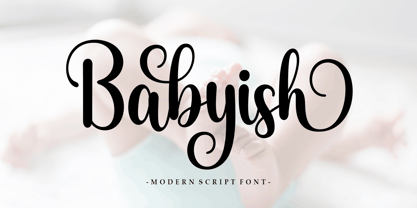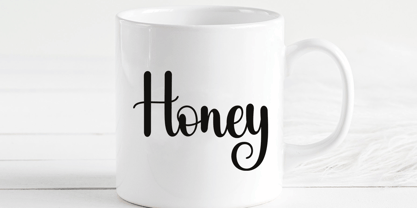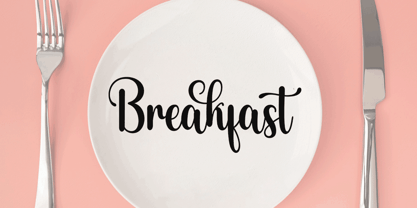
Babyish Script
by Good Design
The Babyish Script Font Family was designed by Agus Pujiyono and published by Good Design. Babyish Script contains 1 styles. More about this family
Babyish script is a modern calligraphy design including Regular. This font is casual and beautiful with swashes. Can be used for various purposes such as logos, product packaging, wedding invitations, branding, headlines, signage, labels, signatures, book covers, posters, quotes, and much more.
Designers: Agus Pujiyono
Foundry: Good Design